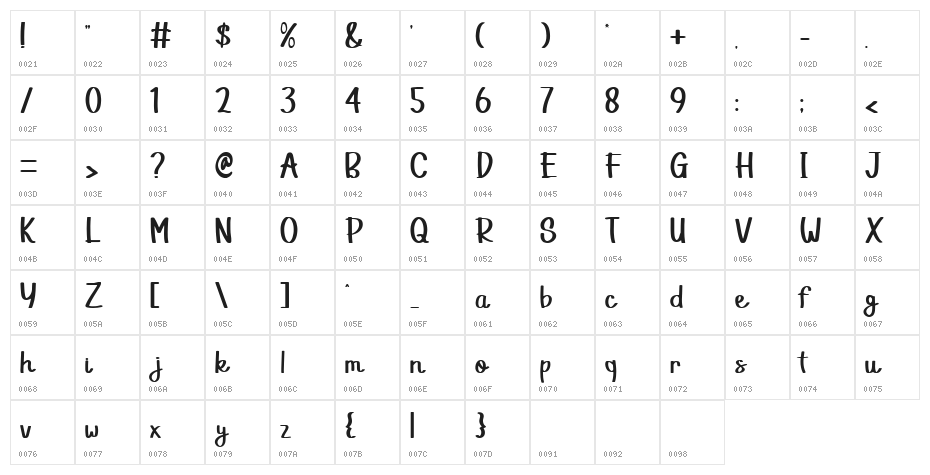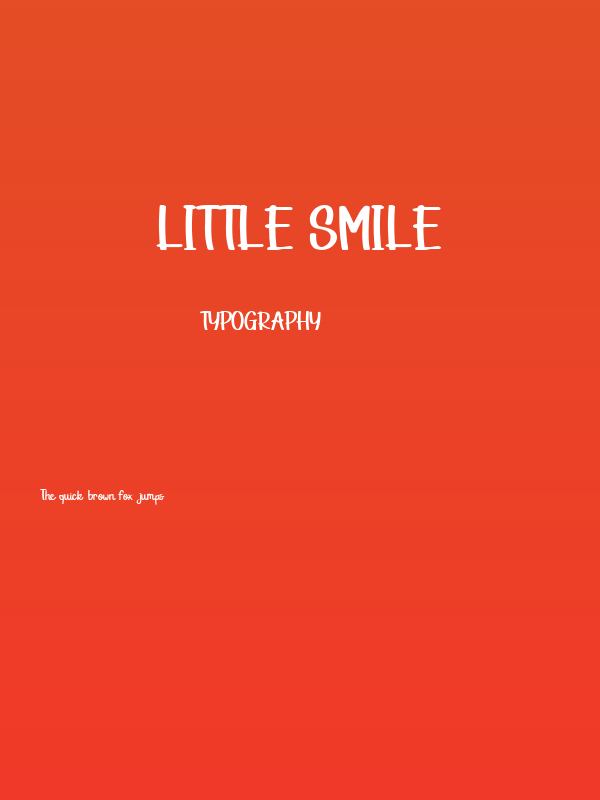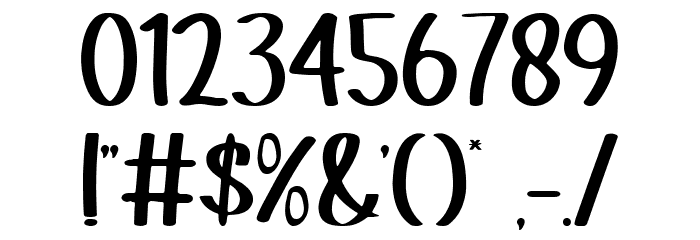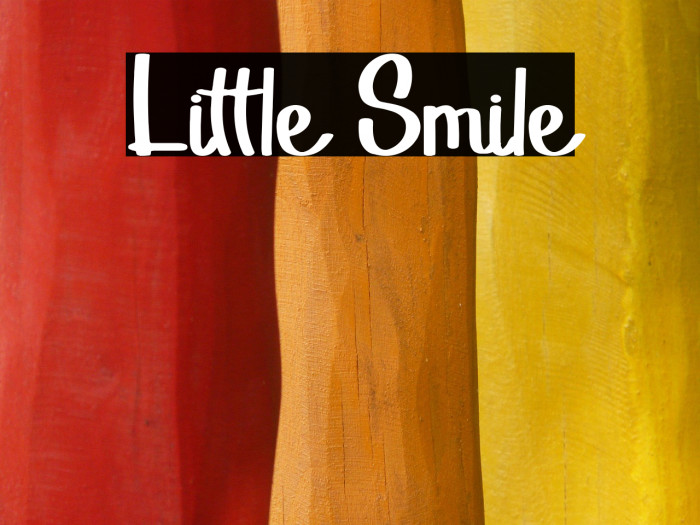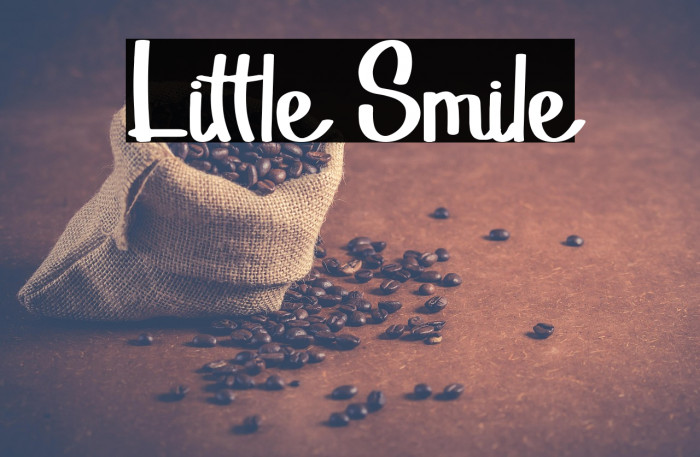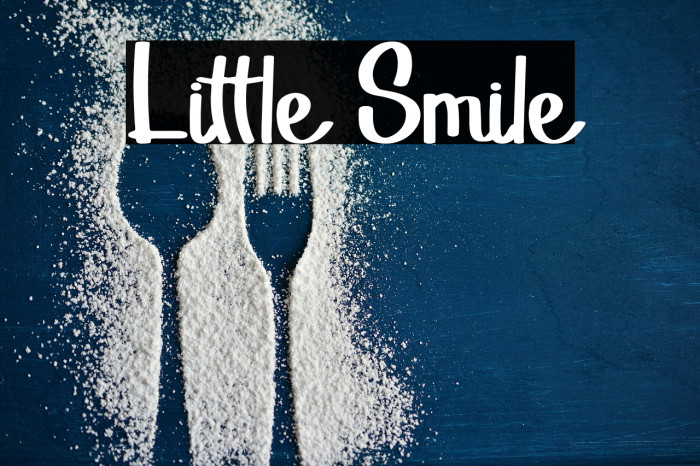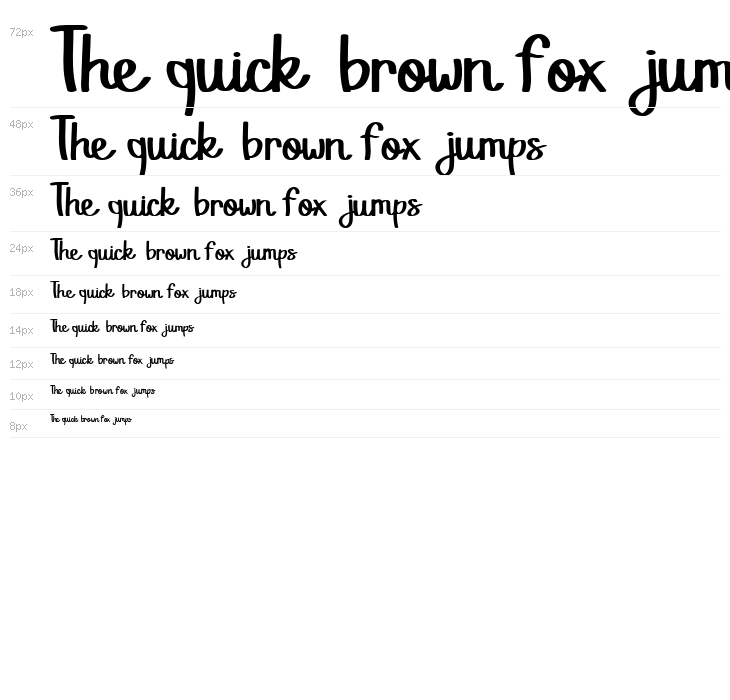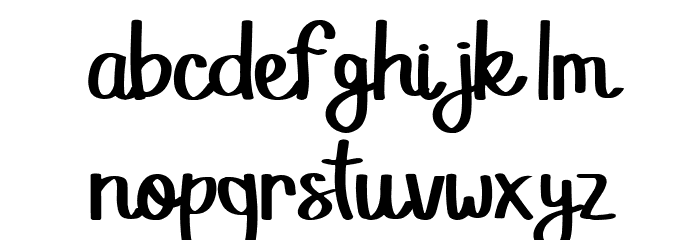
Little Smile Font
Little Smile Description
This playful and whimsical font features a handwritten style with a casual, friendly appearance. The letters are slightly rounded with a consistent stroke width, giving it a smooth and approachable look. The uppercase and lowercase letters maintain a uniform style, with some characters having unique, playful loops and curves. The numerals and special characters are designed to match the overall aesthetic, making it versatile for various uses. This font is perfect for projects that require a personal touch or a fun, informal vibe.
| Overall Style | Casual, Playful |
| Proposed Projects | Ideal for greeting cards, children's books, playful branding, and social media graphics. |